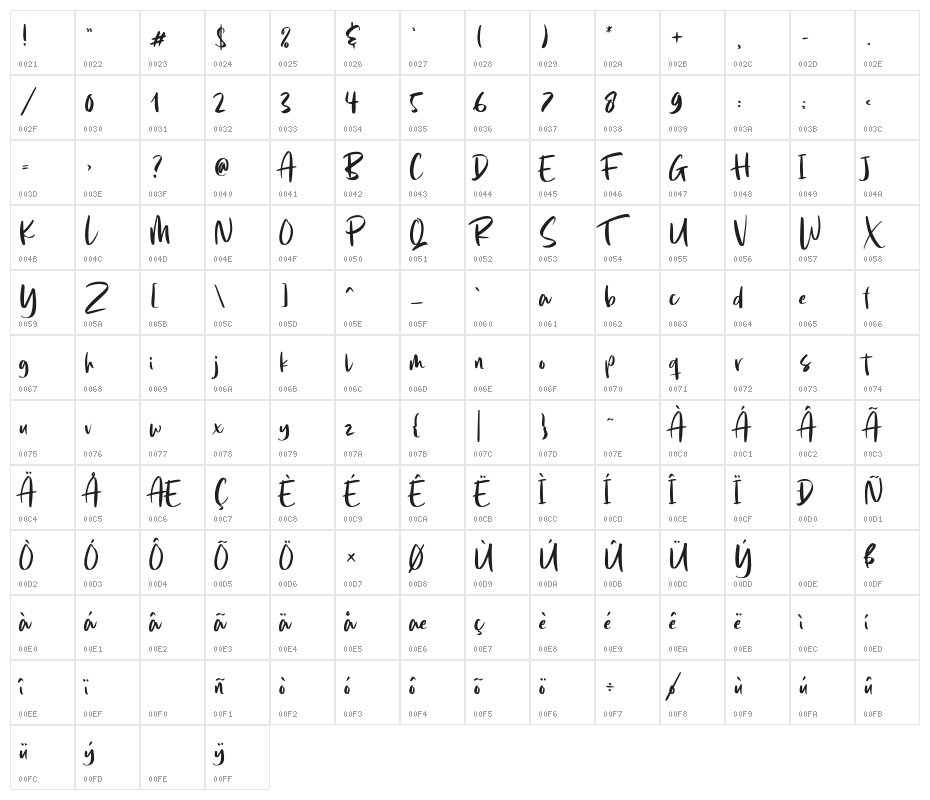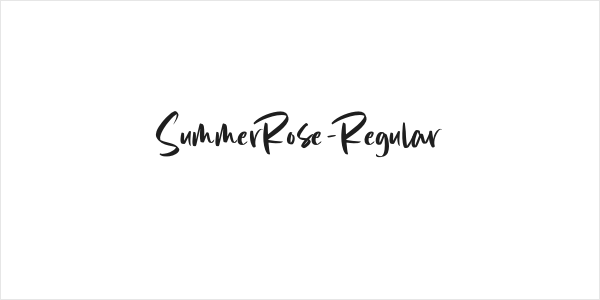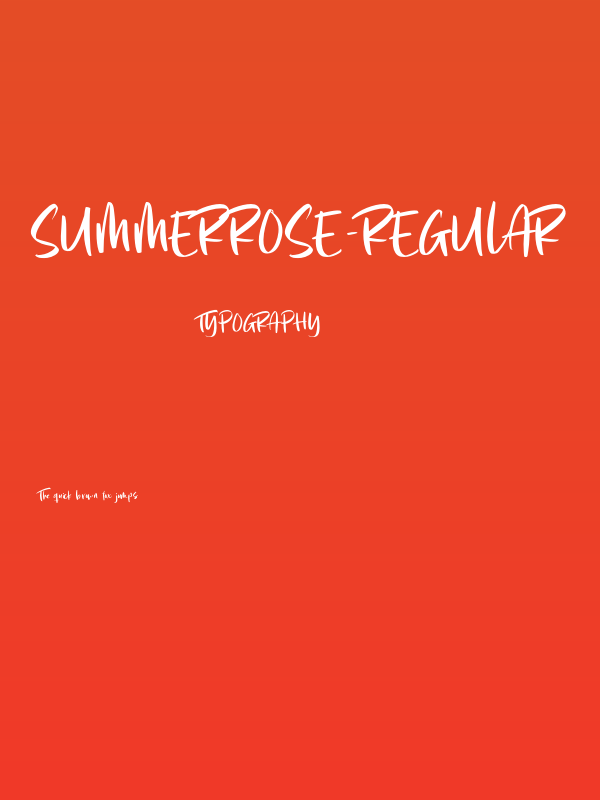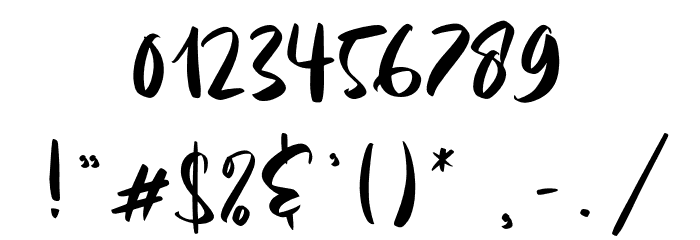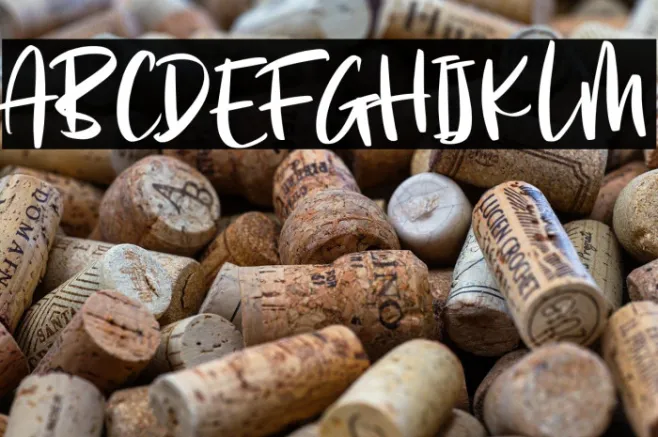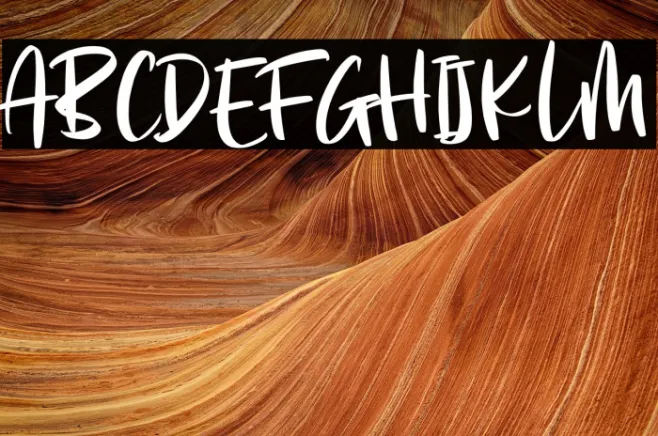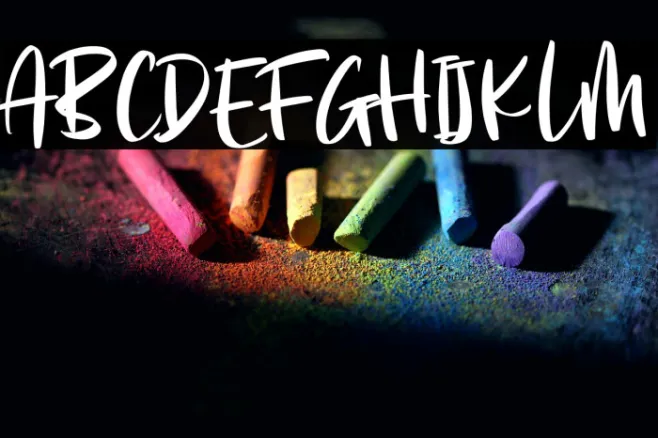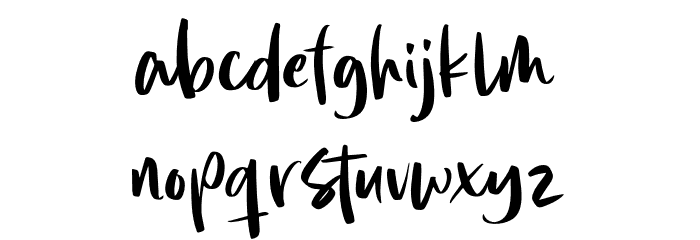
SummerRose-Regular Font
SummerRose-Regular Description
This font exudes a lively and energetic vibe, characterized by its bold and flowing script style. The letters are crafted with a brush-like appearance, giving it a hand-drawn, personal touch. The uppercase letters are tall and slightly slanted, while the lowercase letters maintain a consistent flow with smooth curves and loops. The numbers and special characters follow the same dynamic style, ensuring a cohesive look across all text. This font is perfect for projects that require a personal, informal, or artistic touch, making it ideal for creative designs.
| Proposed Projects | Ideal for greeting cards, invitations, posters, and branding projects that require a personal touch. |